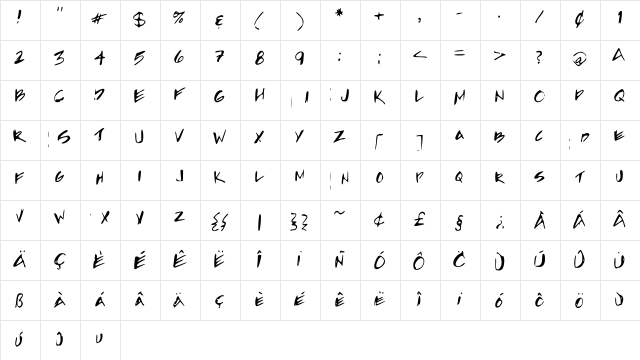
SketchyArch2 Medium
Design Context for SketchyArch2 Typeface
SketchyArch2 is a composed and adaptable typeface that performs quietly and consistently across a wide range of design contexts.